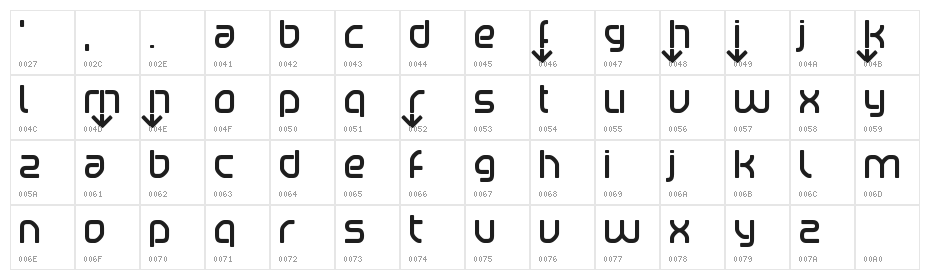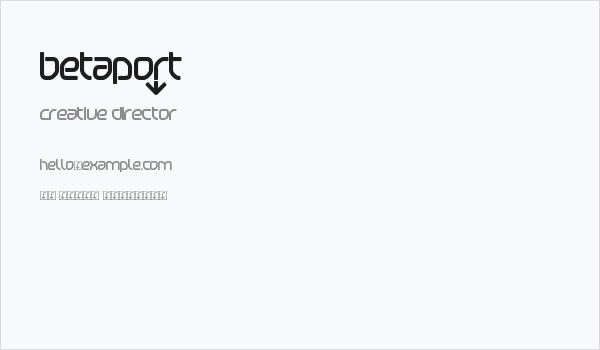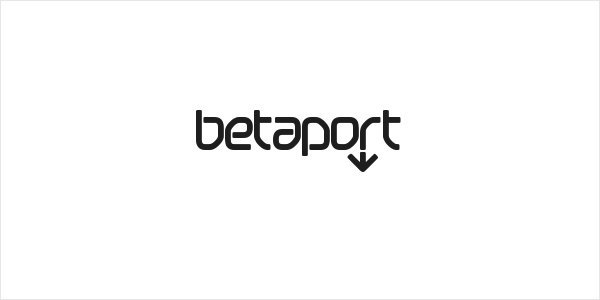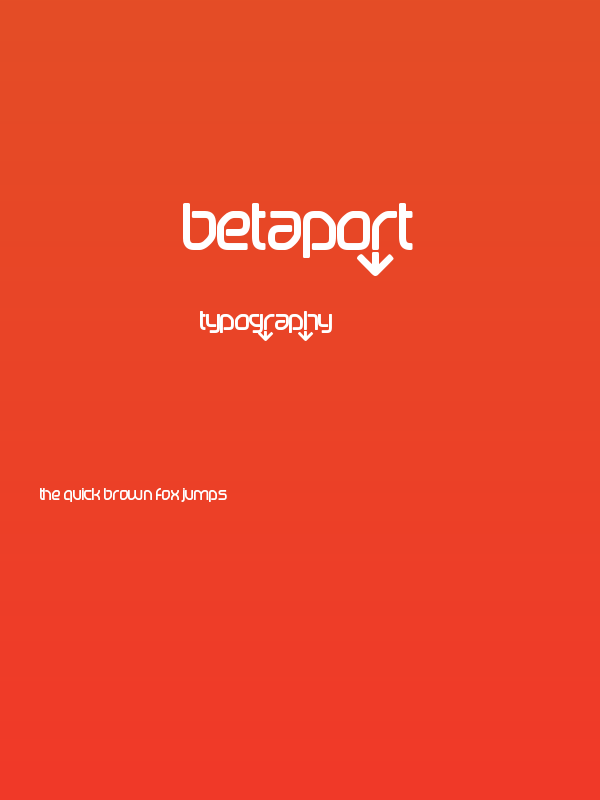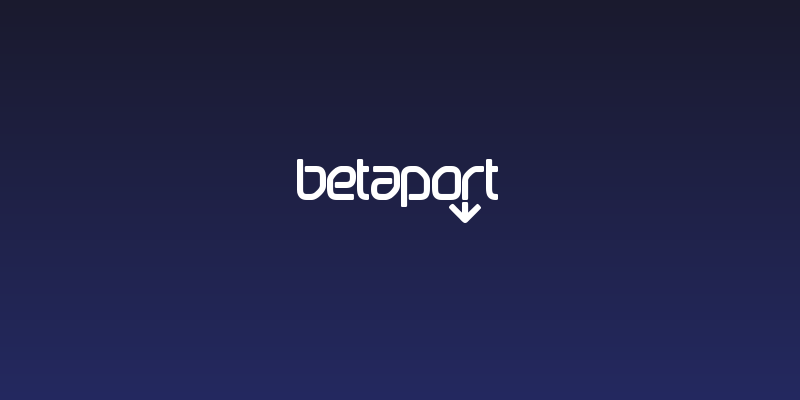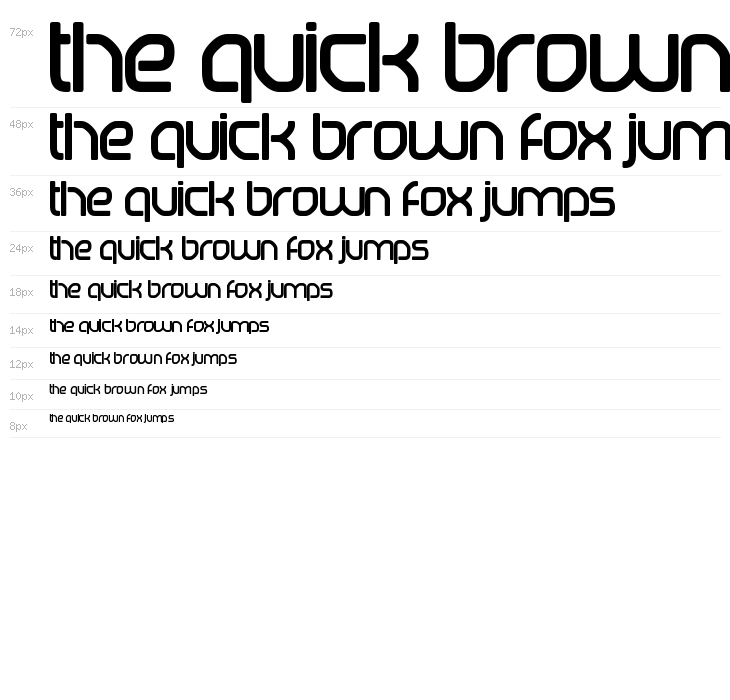
betapoRt Font
betapoRt Description
This font features a unique and playful design with arrows integrated into the characters, giving it a distinctive and modern appearance. The letters are rounded and bold, with a consistent stroke width that maintains a uniform look across all characters. The arrows are cleverly incorporated, adding a dynamic element without compromising readability. This font is particularly eye-catching and would stand out in any design project that requires a touch of creativity and innovation. The overall style is modern and slightly futuristic, making it suitable for contemporary themes.
| Proposed Projects | Ideal for creative branding, modern posters, tech-themed designs, and innovative advertising campaigns. |